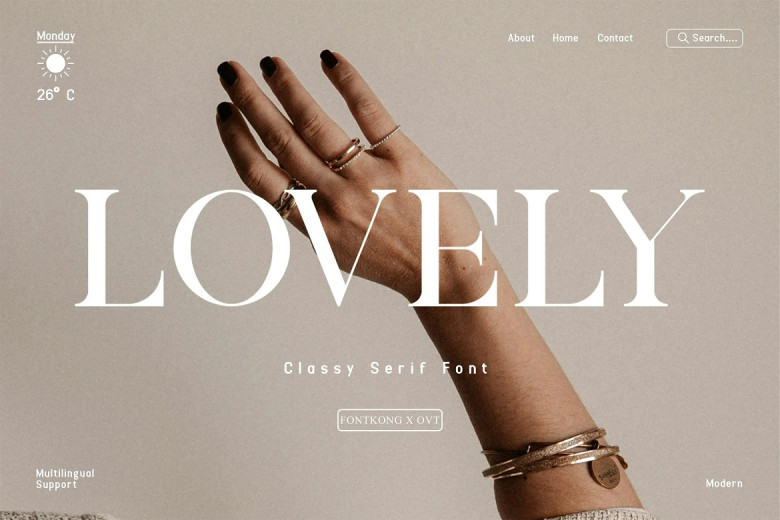
Lovely Classy Font
Lovely Classy is overly enriched with serif making it look elegant and bringing out the tradition and sheer class in anyone who uses it. Great for every graphic designer, typographer or any other creative looking for an elegant typeface to add some style to their work Lovely has a traditional look that will complement any project and make it look even more graceful. Best for branding, magazines, invitations, packaging, and logos, all of Lovely’s characters are crafted to the finest detail, giving them an elegant and highly luxurious look.
Every single letter is conceived for clarity’s and style’s sake and, as a result, people will be mesmerized by your creations and will hardly forget them. The “Lovely” font designed has all capital and small letters, numbers, a punctuation sign, and other types of symbols.
It also guarantees that the set can easily be accommodated into different other design jobs such as classy logo designing and sophisticated editorials. Polish your designs with Lovely, the beautiful serif typeface that conveys gentility and polish to your creative work.
Lovely Classy Serif Font